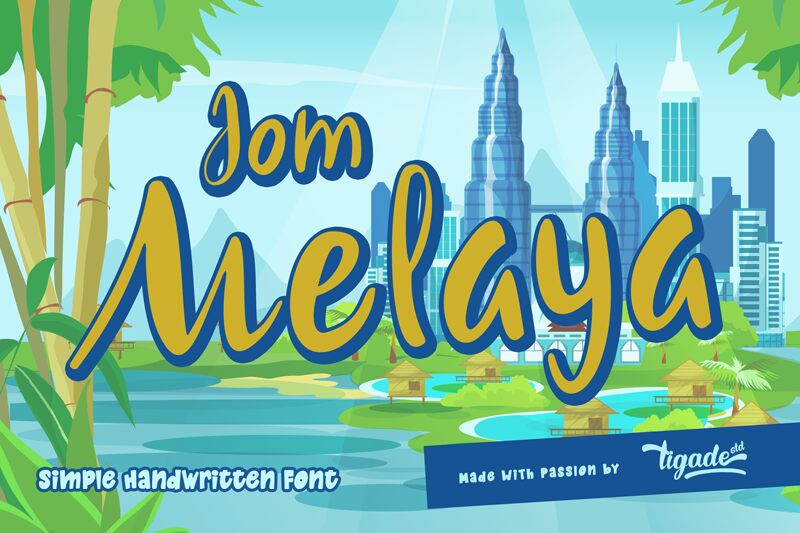
Jom Melaya. Natural handwritten using digital brush. It gives the feel of cute and childish. This font is suitable for happy theme, cute, party, holiday, kids and many more. It is also suitable for Logo, Cards, Branding, Social Media, Youtube Thumbnail, Advertisement, Posters, any many others.